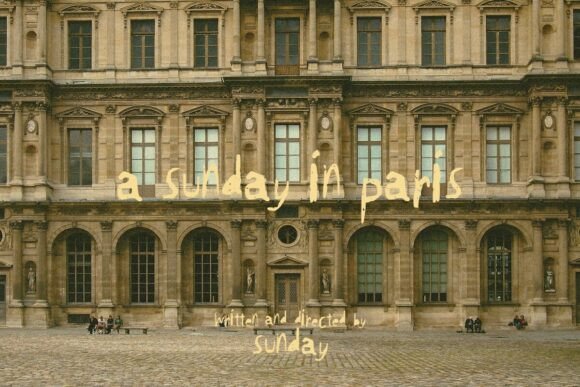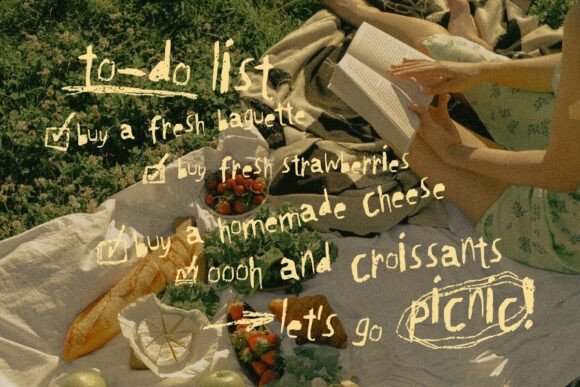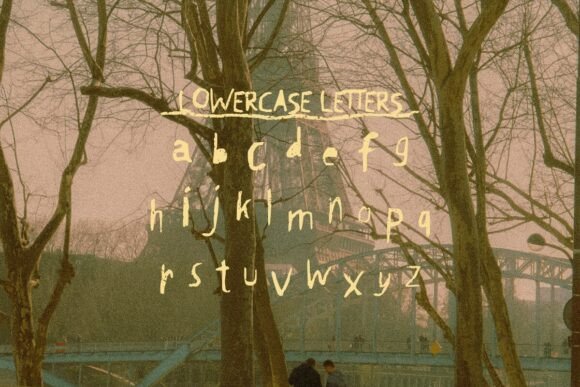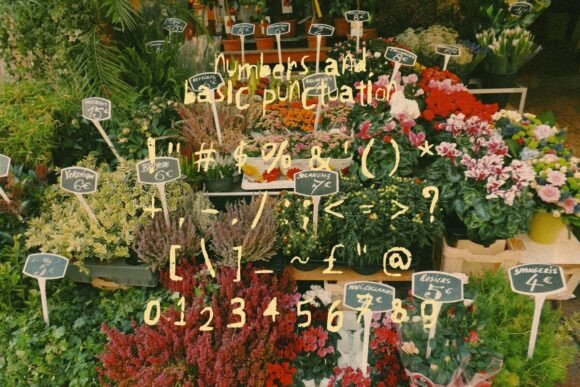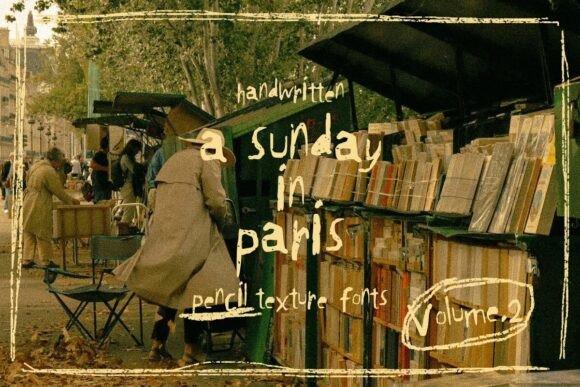
A Sunday in Paris Volume 2 Font: A Playful Companion for Your Design Adventures
I’ll never forget the Sunday morning I spent wrestling with a design project, searching for the perfect font to capture a carefree, childlike essence. My client wanted something that would make their brand stand out, something fun and quirky, but not too serious. As I scrolled through font after font, none seemed quite right – until I stumbled upon A Sunday in Paris Volume 2 Font. This handwritten pencil texture font has been a game-changer for me, and I’m excited to share its charm with you.
- ✨ The playful, doodle-like vibe that adds a creative touch to any project
- ✅ The childlike energy that makes it perfect for kid-friendly projects or whimsical branding
- 💕 The unique pencil-textured strokes that give it a hand-sketched feel
- 🎉 The versatility – it works beautifully for both digital and print projects
While A Sunday in Paris Volume 2 Font is incredibly charming, there are a few things to keep in mind:
- 🤔 It might not be the best fit for very formal or corporate projects, as it’s quite playful
- ⚠️ Some of the more intricate glyphs might not display perfectly at very small sizes
- Experiment with OpenType features like ligatures and stylistic alternates to add more personality to your text
The story behind A Sunday in Paris Volume 2 Font begins with a designer’s love for the carefree spirit of a Parisian Sunday. Imagine strolling along the Seine, notebook in hand, capturing the city’s whimsy and charm. This font aims to bottle up that feeling, offering a playful yet elegant typeface for your designs. Whether it’s for a brand looking to connect with a younger audience or a craft project that needs a personal touch, this font brings a smile.
Q: Can I use A Sunday in Paris Volume 2 Font for my children’s book?
A: Absolutely! Its childlike charm and playful vibe make it an excellent choice for children’s books, educational materials, or any kid-friendly content.
Q: Does A Sunday in Paris Volume 2 Font support OpenType features?
A: Yes, A Sunday in Paris Volume 2 Font supports various OpenType features, including ligatures and stylistic alternates, which can enhance your typography.